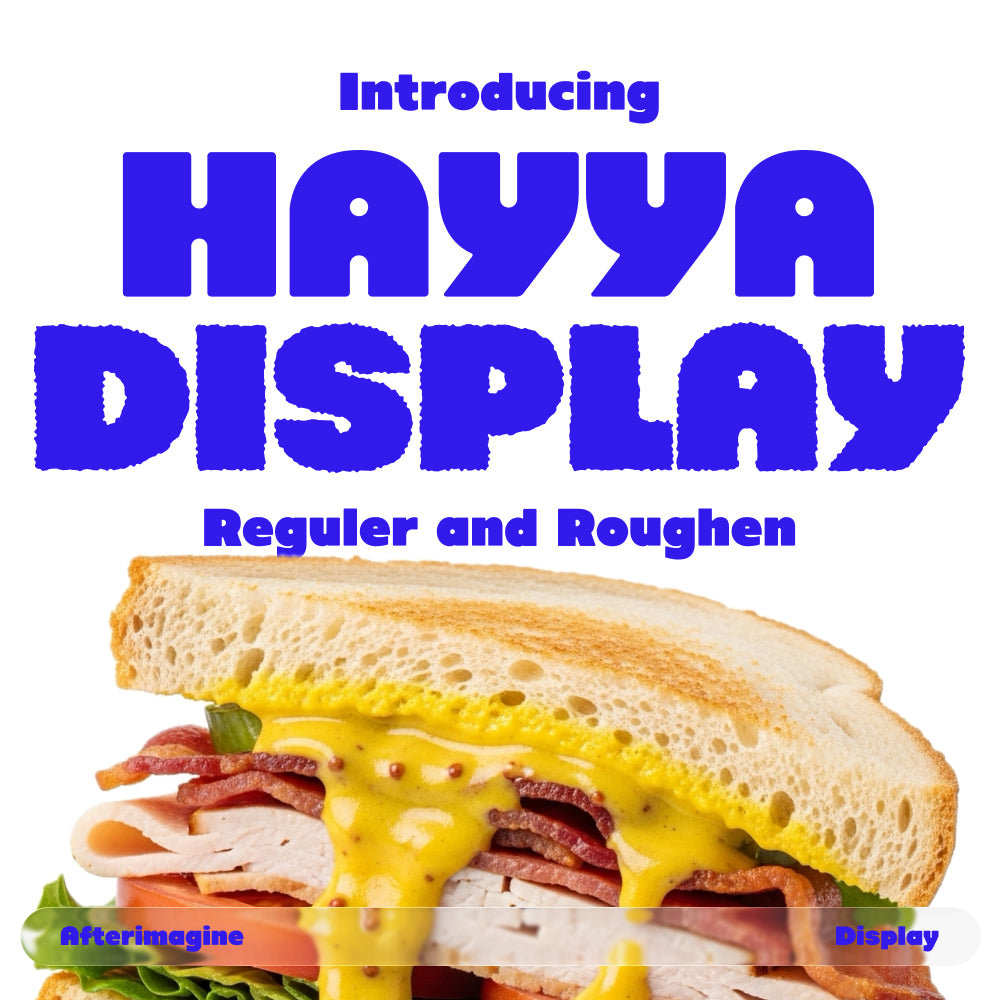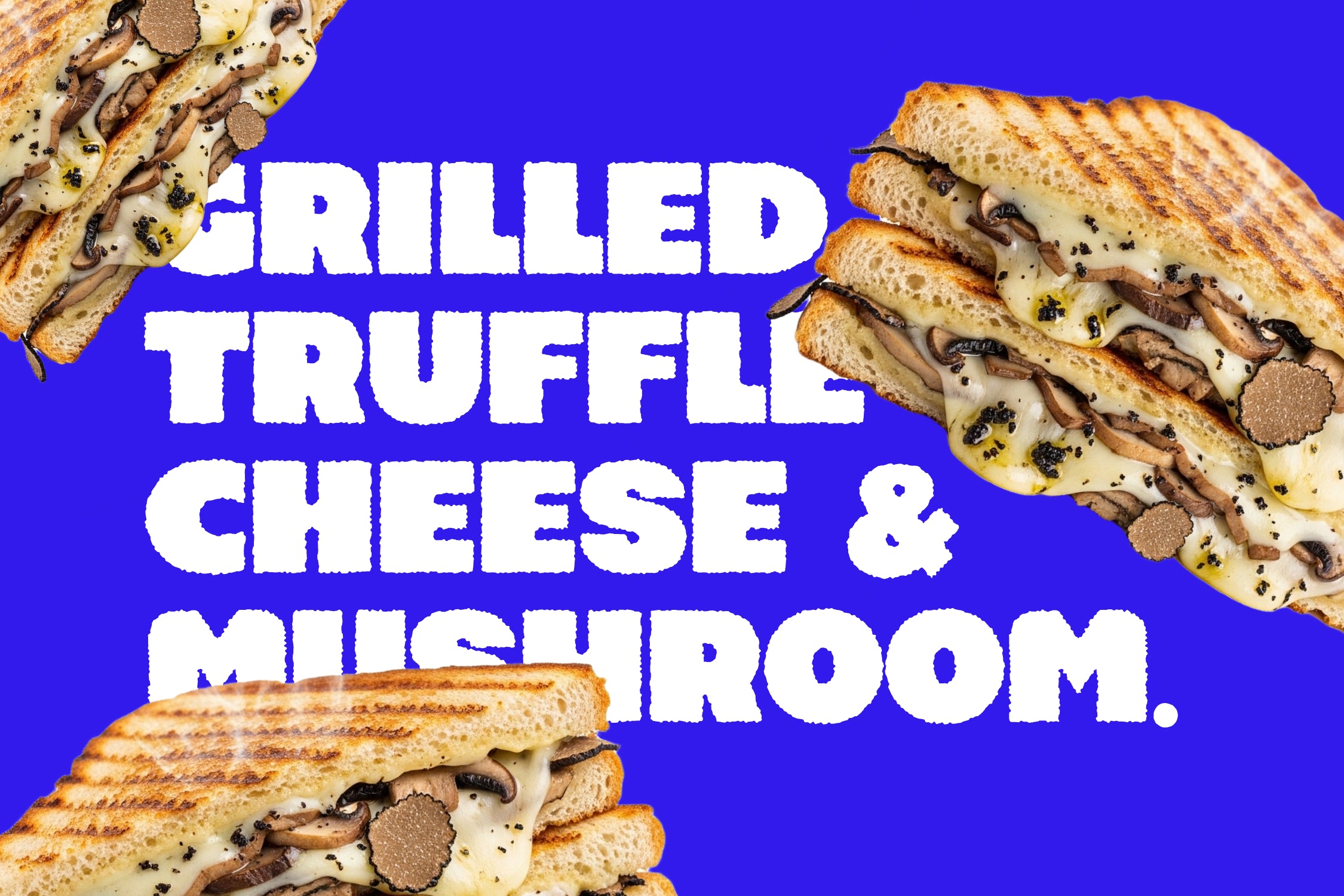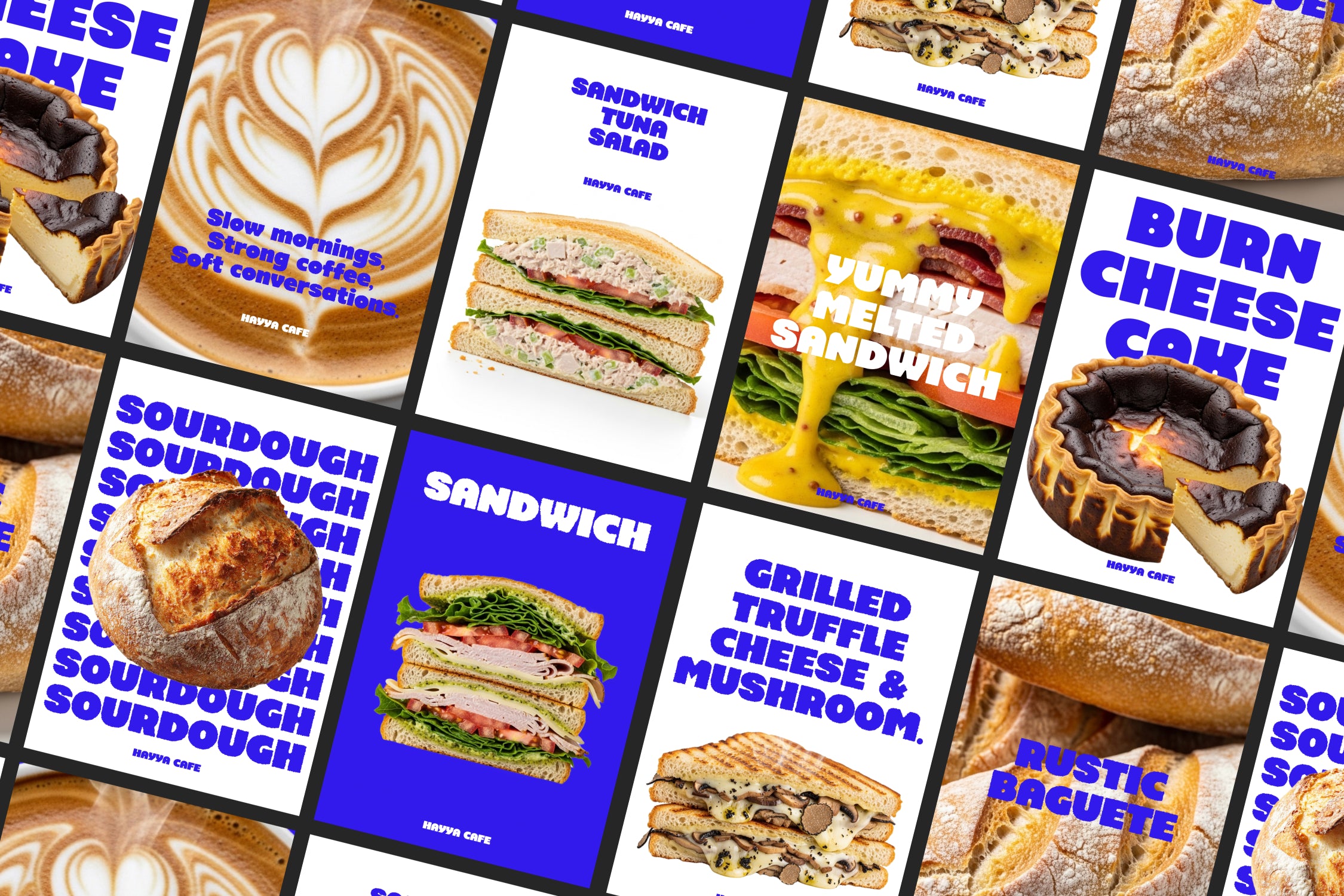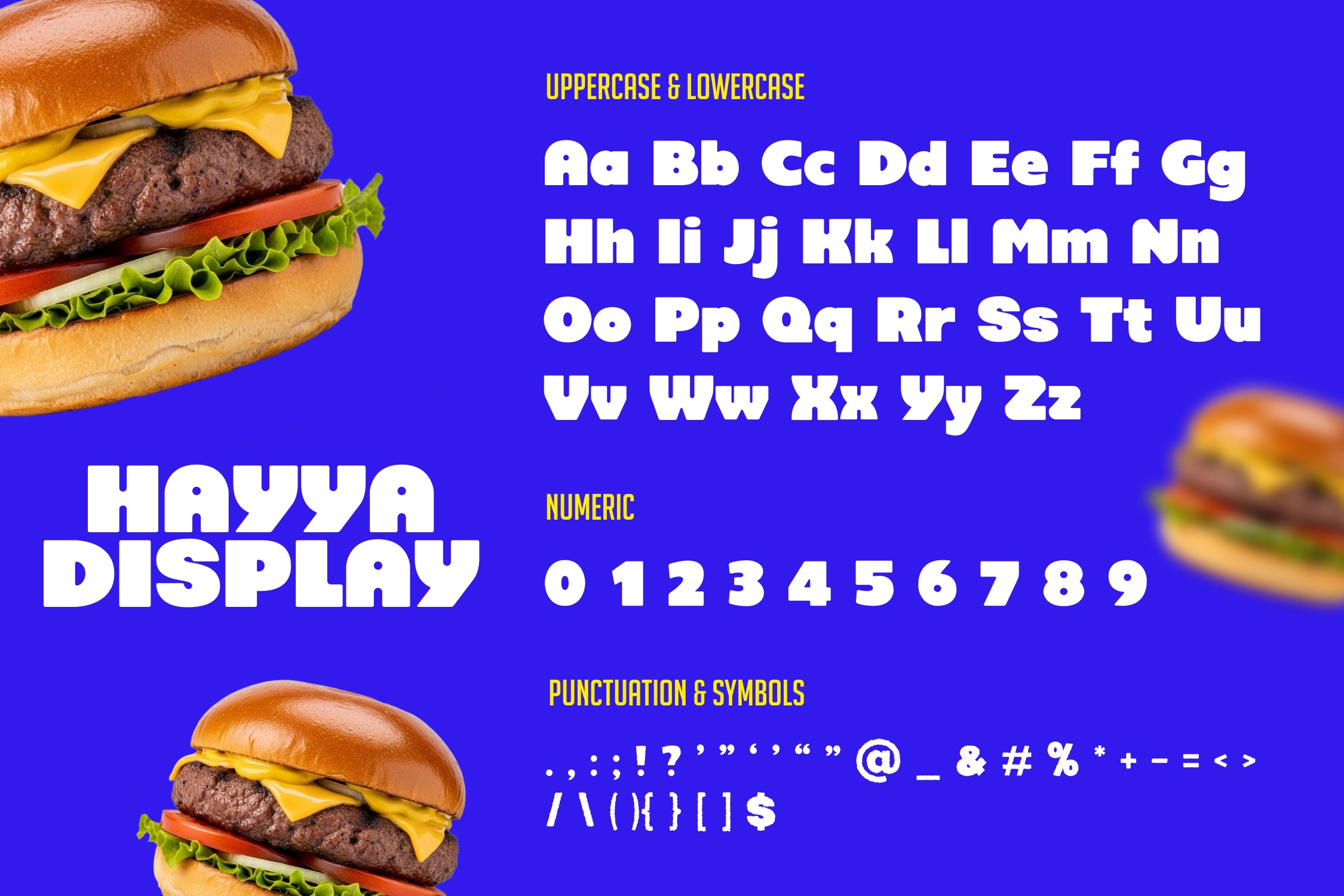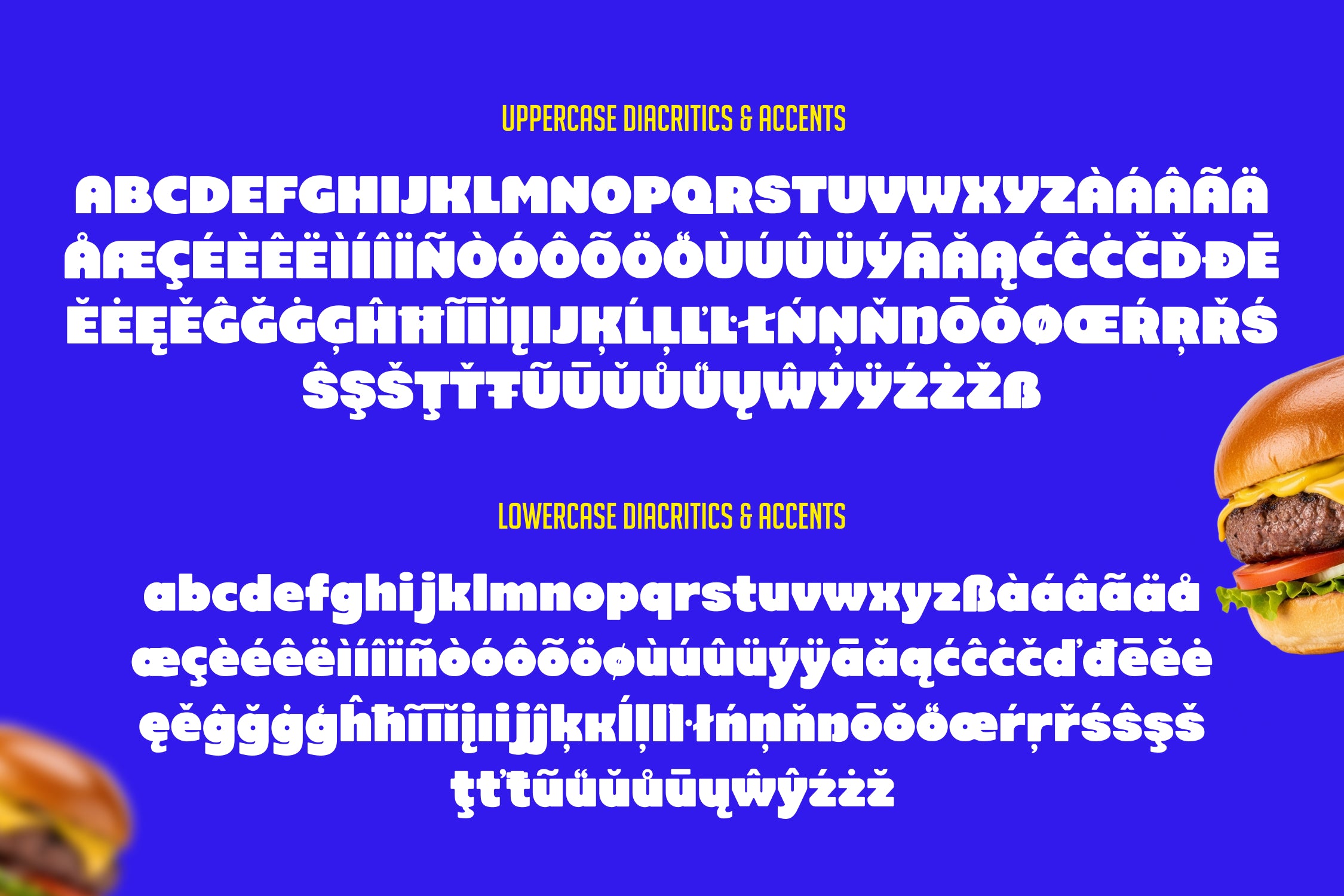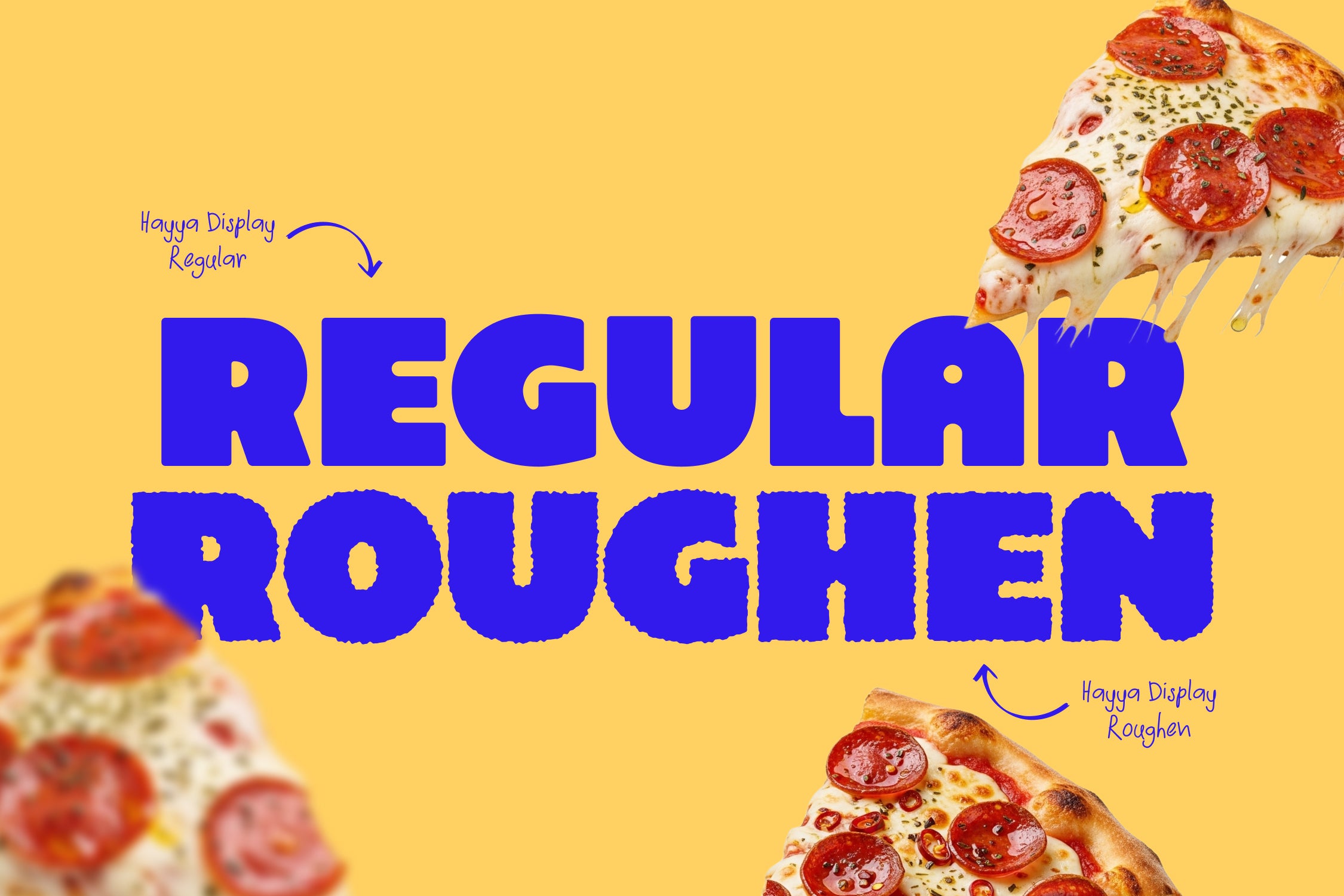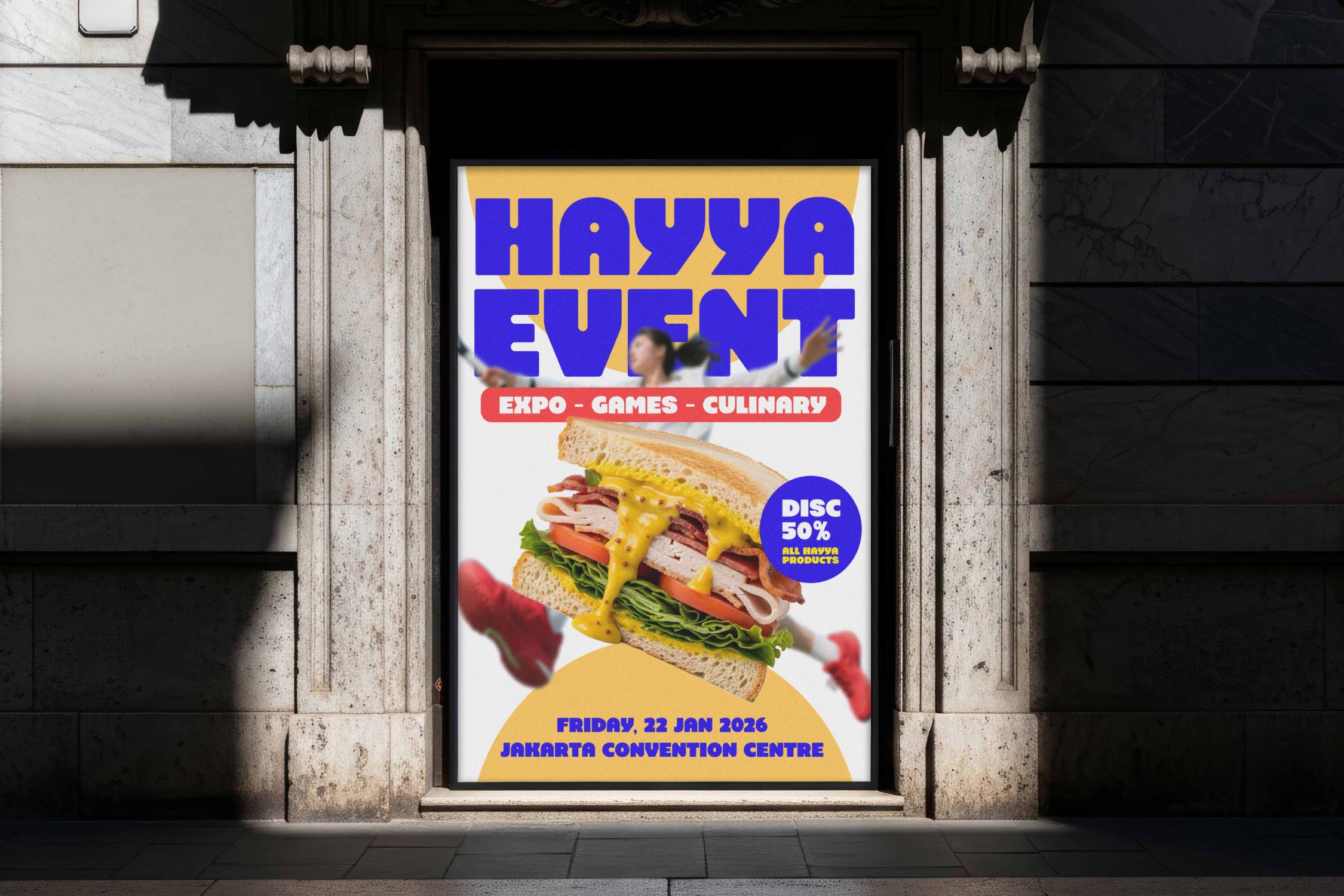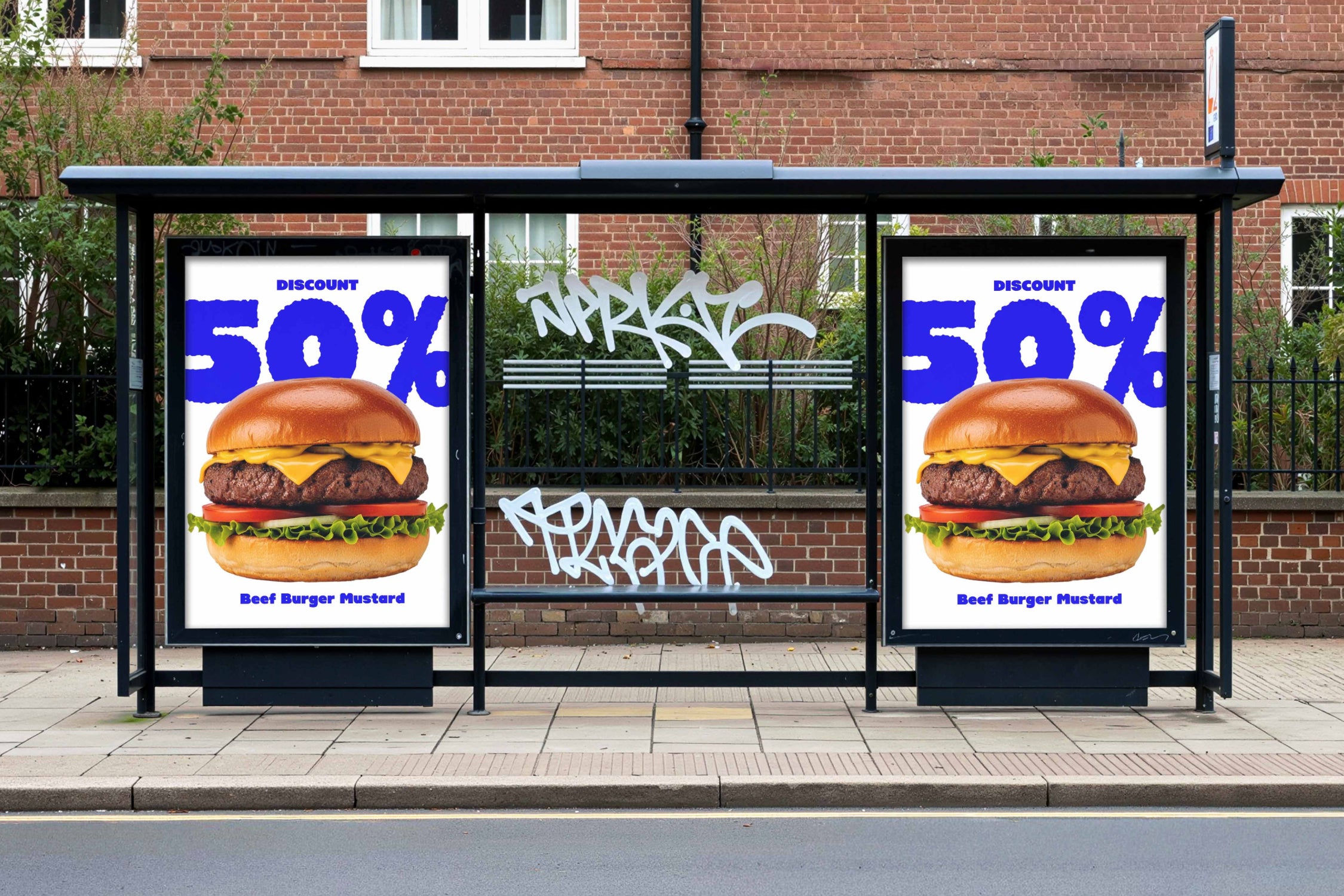
Hayya Display Font - Regular & Roughen
Bold playful display font with clean and rough textures for loud visual statements.
Hayya Display is a bold, chunky display font built to grab attention fast. With rounded shapes, heavy weight, and playful proportions, this typeface is made for eye-catching headlines, food branding, posters, packaging, and expressive visual design.
This font comes in two styles: Regular for clean, smooth typography, and Roughen for a raw, textured look that adds character and attitude. Whether you’re working on modern branding, editorial layouts, or fun commercial visuals, Hayya delivers strong personality without losing readability.
Designed to work best at large sizes, Hayya Display turns simple words into bold graphic elements.